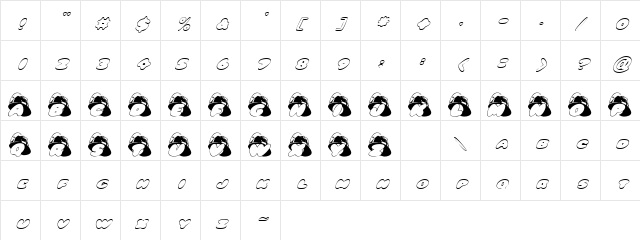
AL Fire Helmet Regular Font Preview
AL Fire Helmet Regular
Design Context for AL Fire Helmet Typeface
AL Fire Helmet is a composed and adaptable typeface that performs quietly and consistently across a wide range of design contexts.